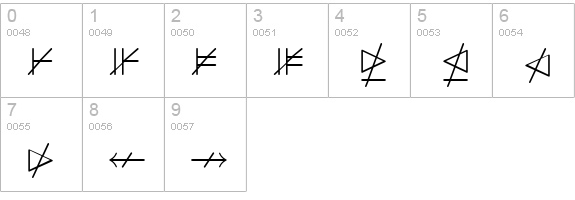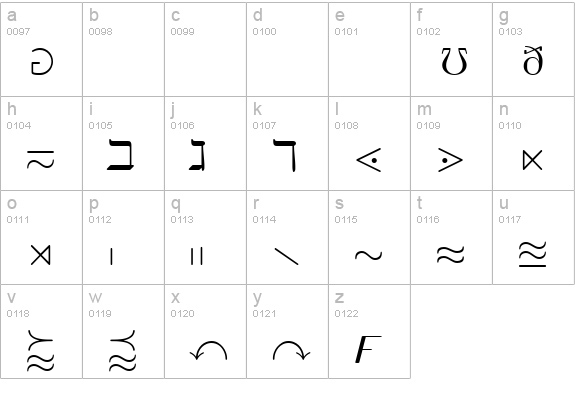
TeXplus SB is a captivating and versatile font that seamlessly blends elegance with modernity. This font is perfect for those seeking a balance between classic appeal and contemporary design. With its impeccable letterforms and refined strokes, TeXplus SB exudes a sense of sophistication and professionalism that is sure to elevate any project it is used in. What sets TeXplus SB apart is not only its stunning aesthetic, but also the fact that it is freely available for download at FontsMarket.com. This means that you can effortlessly incorporate this remarkable font into your creative endeavors without having to worry about any financial constraints. Whether you are a graphic designer, web developer, or simply an enthusiast looking to add a touch of finesse to your personal projects, TeXplus SB is the perfect choice. With its extensive character set, TeXplus SB offers a wide range of possibilities. From headline typography to body text, this font excels in every application. Its clean and legible design ensures optimal readability, making it an excellent choice for both print and digital mediums. The versatility of TeXplus SB extends beyond its aesthetic appeal. It is a font that effortlessly adapts to various design styles and themes, making it a reliable choice for any project. Whether you are working on a sleek and modern website, a vintage-inspired poster, or an elegant branding project, TeXplus SB will effortlessly enhance your design with its timeless allure. In addition to its aesthetic and functional qualities, TeXplus SB is also incredibly easy to work with. Its seamless compatibility with design software ensures a hassle-free experience, allowing you to focus on unleashing your creativity without any technical obstacles. In summary, TeXplus SB is a free font that combines elegance and modernity, making it a must-have for any design enthusiast. Its captivating letterforms, refined strokes, and extensive character set make it a versatile choice for a wide range of projects. Whether you are a professional designer or a passionate hobbyist, TeXplus SB is the perfect tool to elevate your creative endeavors. Download it now for free at FontsMarket.com and unlock a world of possibilities.